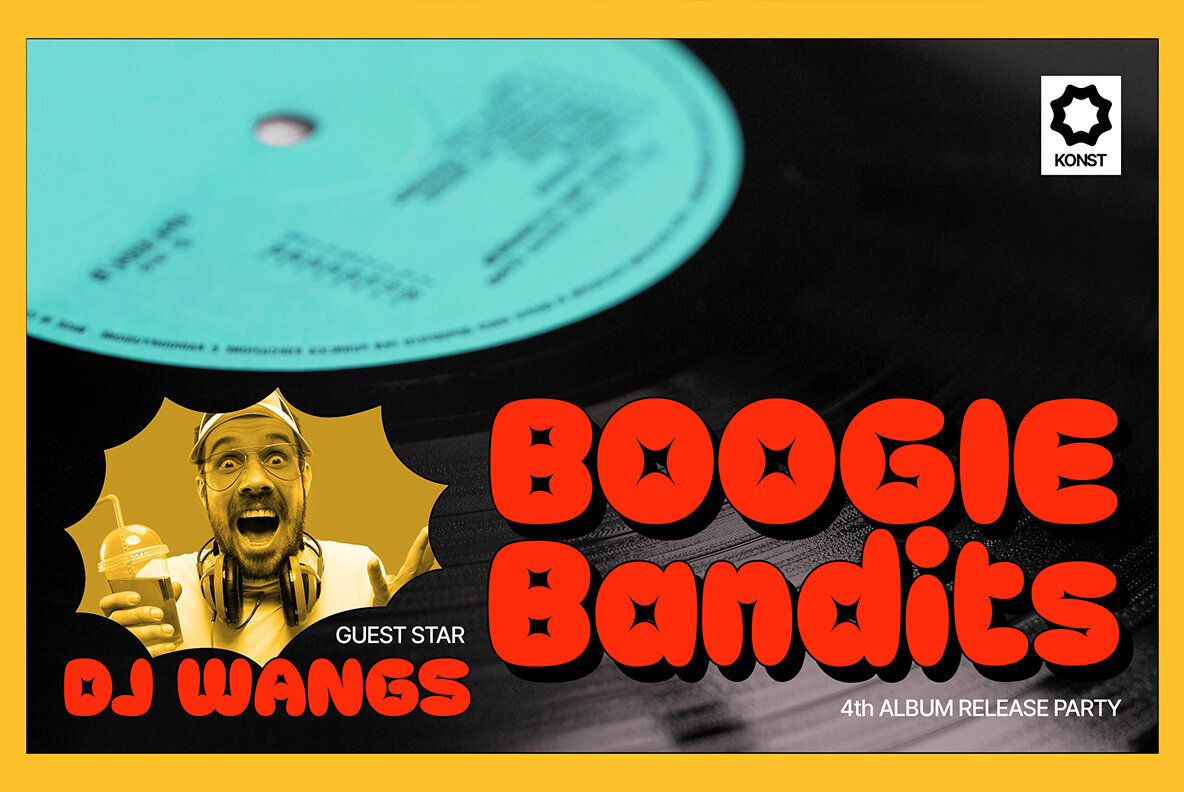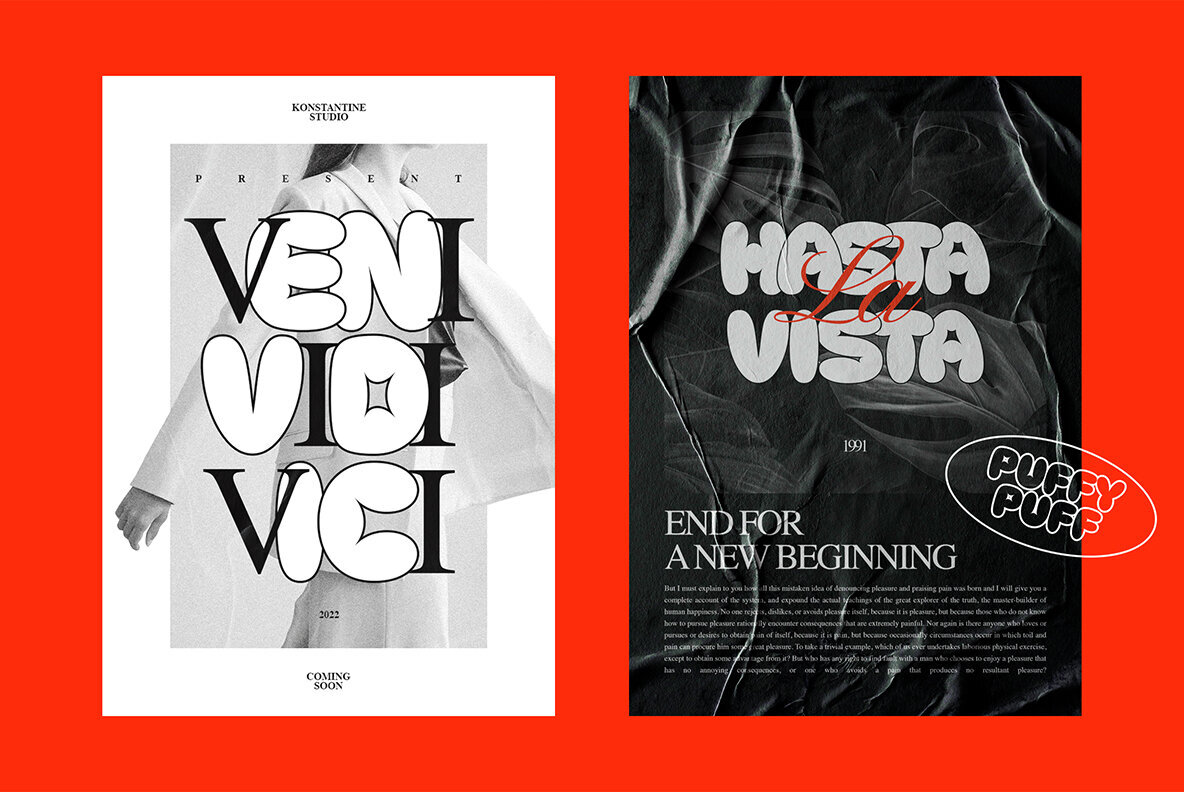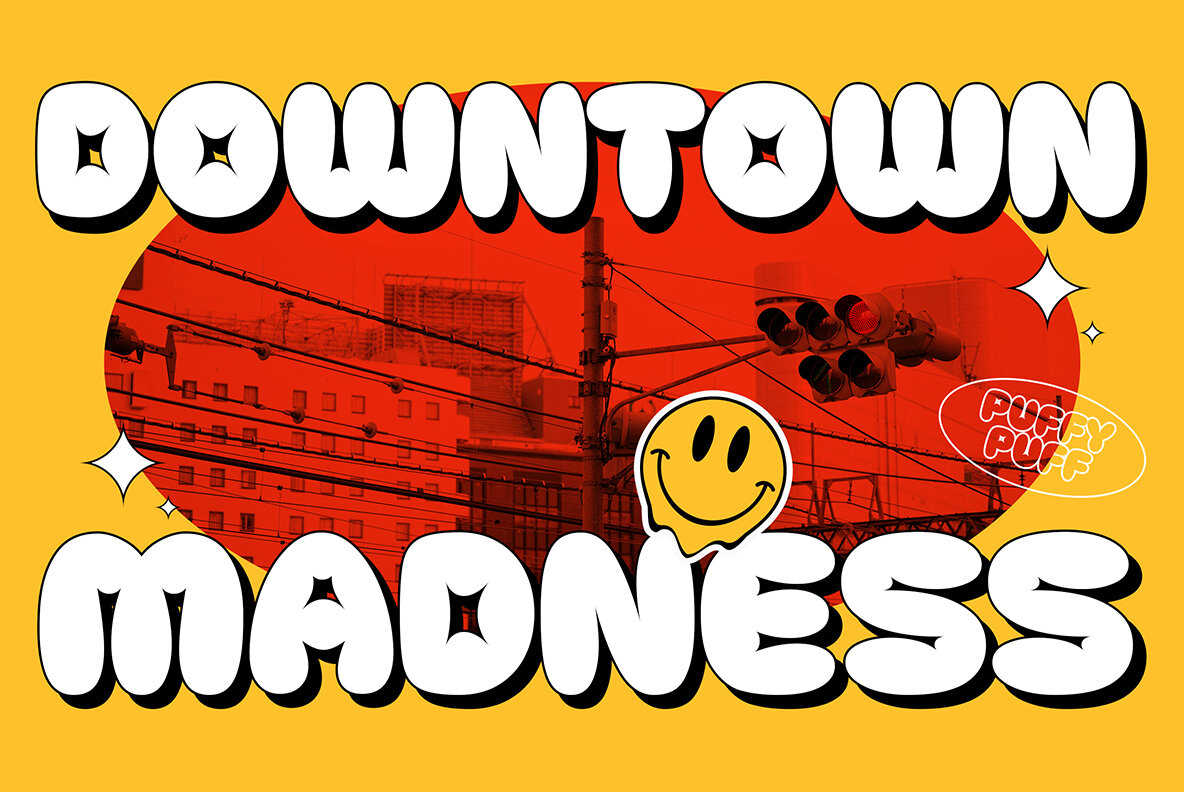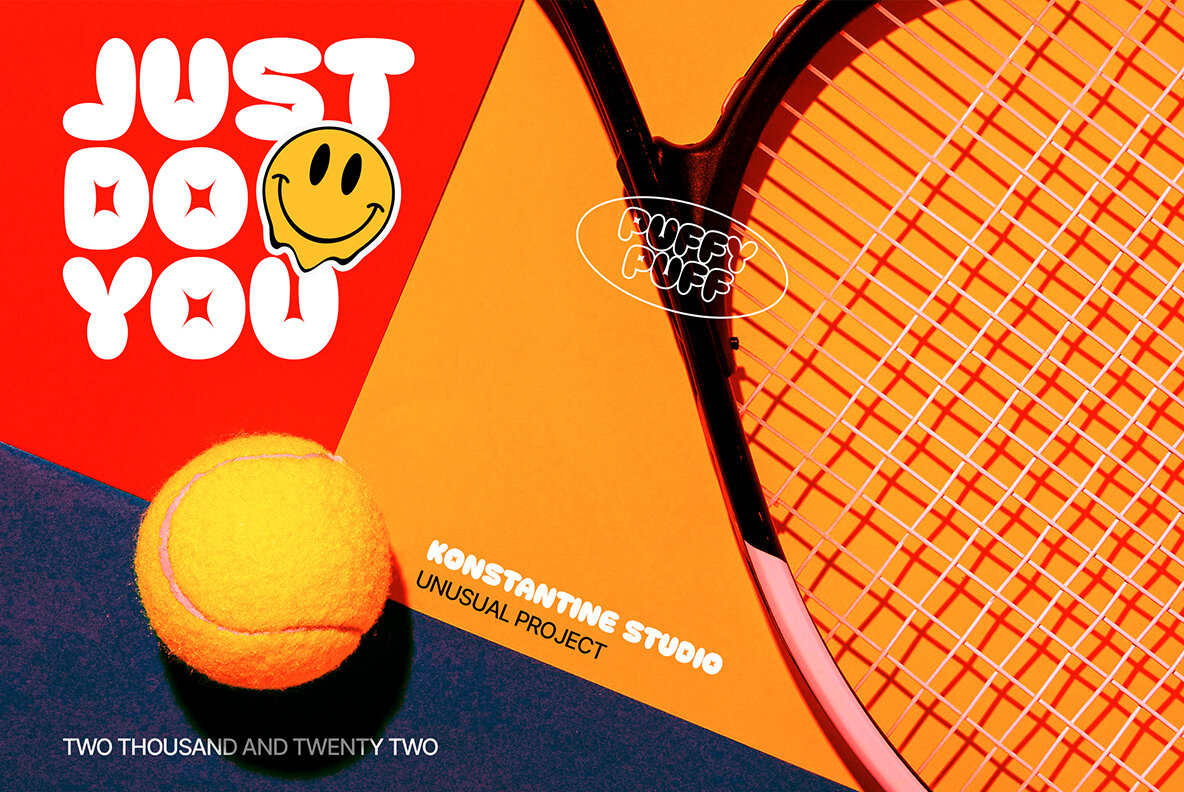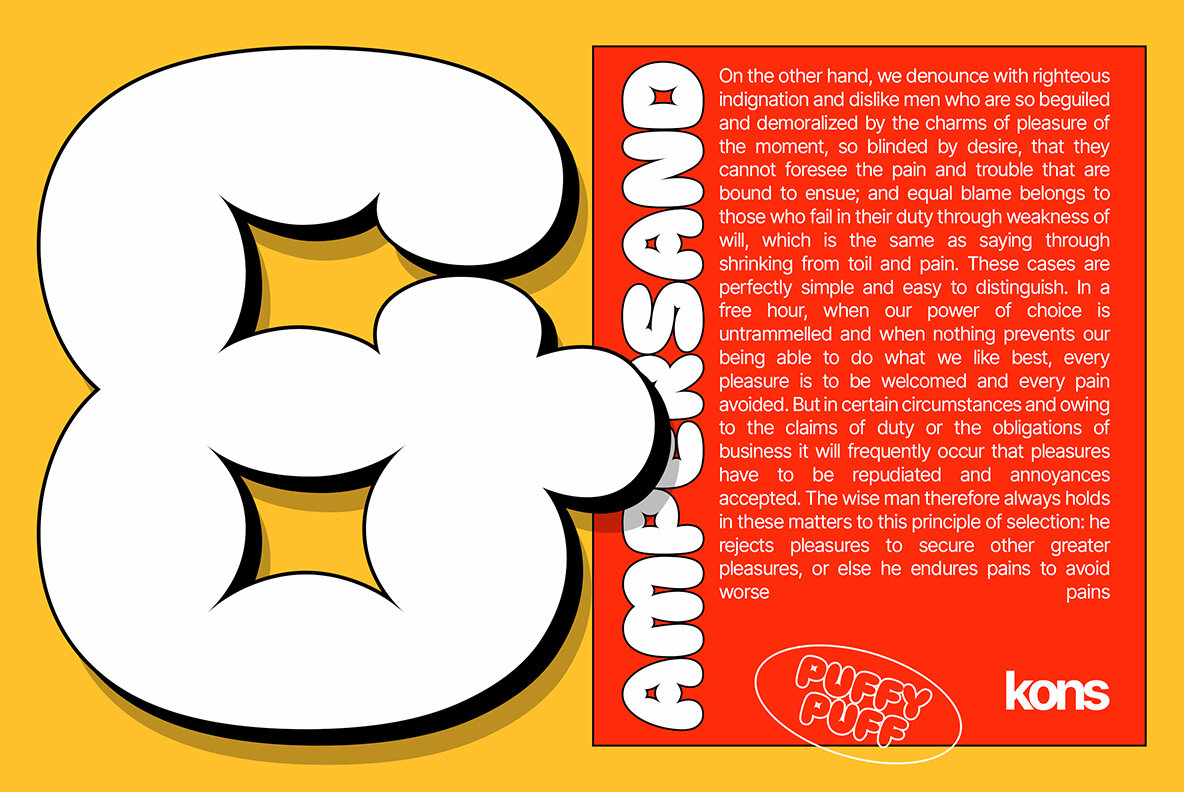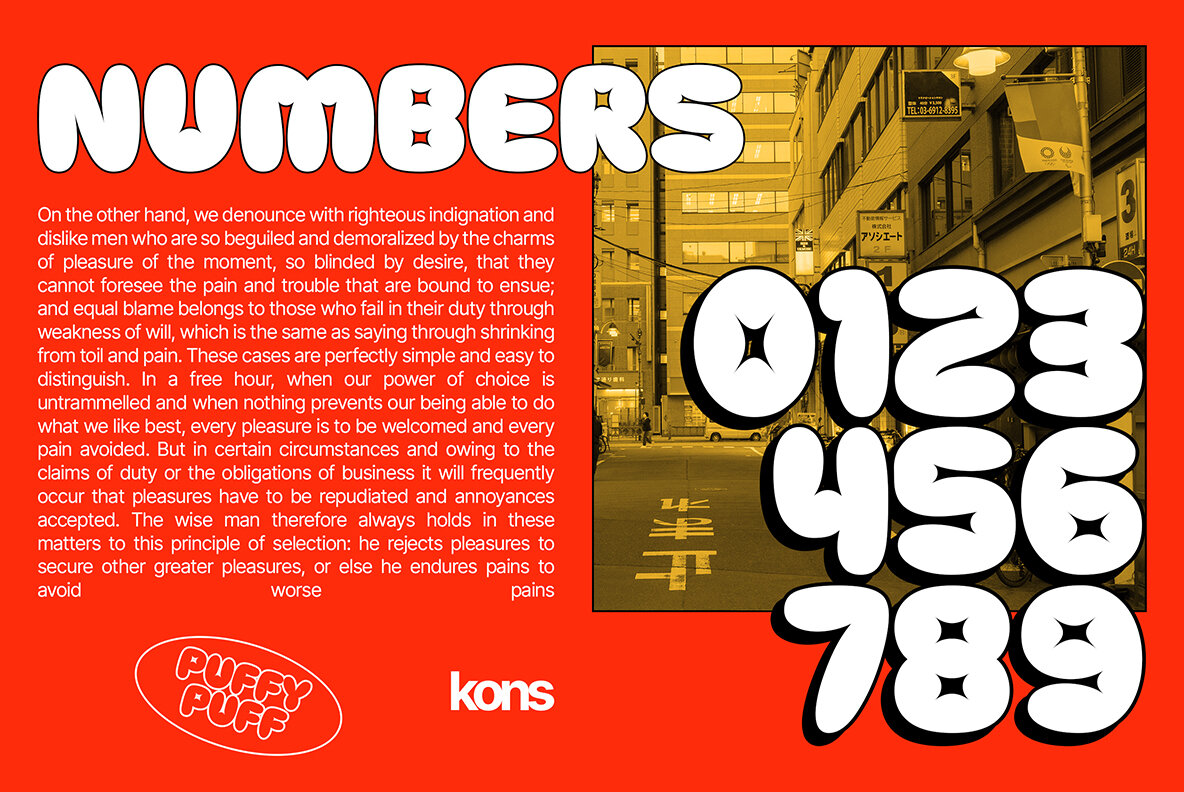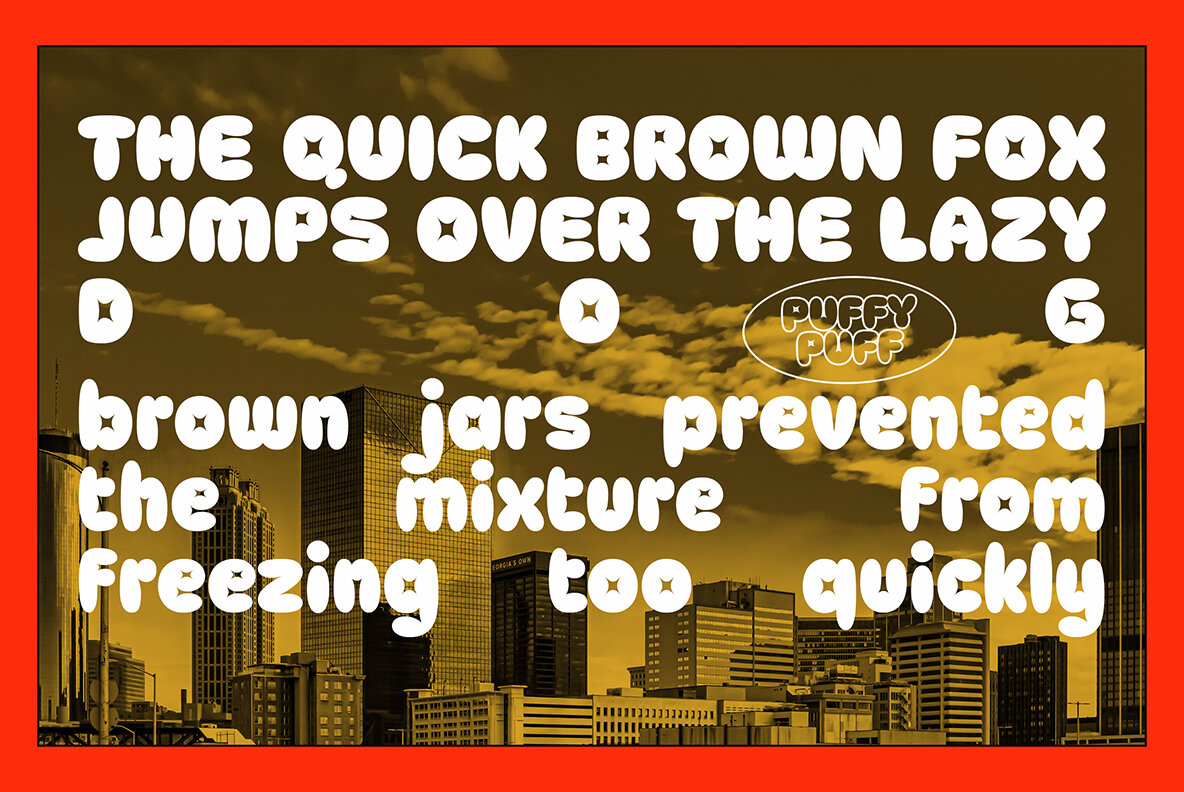
Puffypuff Font
Puffypuff Regular
The Puffypuff font is an experimental display typeface that's based on the pillow and cloud shapes. Inspired by these natural forms, it interpreted into a bunch or letters so you can't resist having this beautiful yet curious design!
Usage tips:
* Play with strokes to give bold comical and vintage vibes.
* Duplicate the word, make it all black for the back one, and slide it down a little bit to make a shadow effect.
* Mix the letters with other fonts in one word to make such an experimental visual concept with it (see 3rd poster).